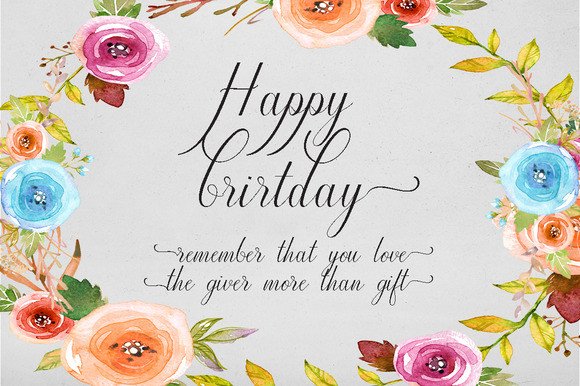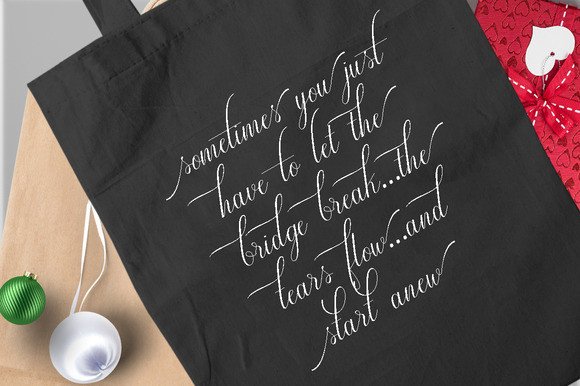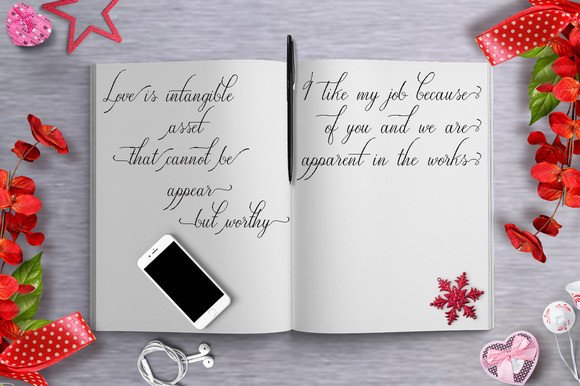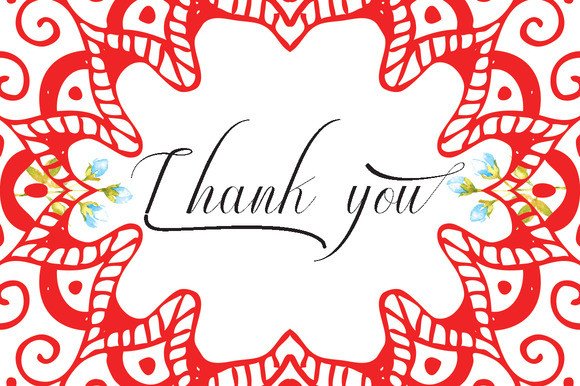
Introducing Harmony Font: The Perfect Blend of Elegance and Modernity
Are you a designer or crafter looking for a font that exudes elegance, sophistication, and a touch of modernity? Look no further than Harmony Font, a stunning script font that is sure to elevate your projects to the next level. With its steady and clean design, concise structure, and handwritten appeal, Harmony Font is the perfect choice for anyone seeking a tidy and modern handwritten look.
What is Harmony Font?
Harmony Font is a beautifully crafted script font that boasts a unique blend of classic elegance and modern sophistication. Its steady and clean design makes it perfect for a wide range of projects, from wedding invitations and party decorations to branding and advertising materials. The font’s concise structure and handwritten appeal give it a personal touch that is sure to resonate with your audience.
Key Features of Harmony Font
- Steady and Clean Design: Harmony Font features a steady and clean design that is perfect for projects that require a modern and sophisticated look.
- Concise Structure: The font’s concise structure makes it easy to read and understand, even at small sizes.
- Handwritten Appeal: Harmony Font’s handwritten appeal gives it a personal touch that is sure to make your projects stand out.
- Modern and Elegant: The font’s modern and elegant design makes it perfect for a wide range of projects, from wedding invitations to branding and advertising materials.
Use Cases for Harmony Font
Harmony Font is a versatile font that can be used in a wide range of projects, including:
- Wedding Invitations: The font’s elegant and sophisticated design makes it perfect for wedding invitations, save-the-date cards, and other wedding-related materials.
- Branding and Advertising: Harmony Font’s modern and clean design makes it perfect for branding and advertising materials, such as logos, brochures, and flyers.
- Party Decorations: The font’s playful and handwritten appeal makes it perfect for party decorations, such as banners, garlands, and gift tags.
- Digital Media: Harmony Font can also be used in digital media, such as social media graphics, blog posts, and email newsletters.
Why Choose Harmony Font?
There are many reasons why Harmony Font stands out from the crowd. Here are just a few:
- Unique and Versatile: Harmony Font is a unique and versatile font that can be used in a wide range of projects.
- Elegant and Sophisticated: The font’s elegant and sophisticated design makes it perfect for projects that require a high level of professionalism.
- Easy to Read: Harmony Font’s concise structure and clean design make it easy to read and understand, even at small sizes.
- High-Quality: The font is made from high-quality materials and is designed to produce crisp and clear results.
In conclusion, Harmony Font is a stunning script font that is sure to elevate your projects to the next level. With its steady and clean design, concise structure, and handwritten appeal, Harmony Font is the perfect choice for anyone seeking a tidy and modern handwritten look. Whether you’re a designer, crafter, or DIY enthusiast, Harmony Font is a must-have font that is sure to inspire your creativity and bring your projects to life.